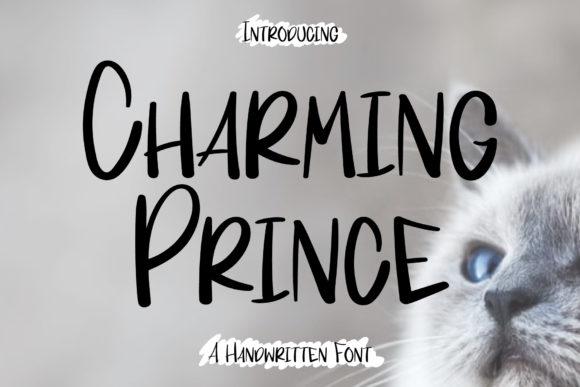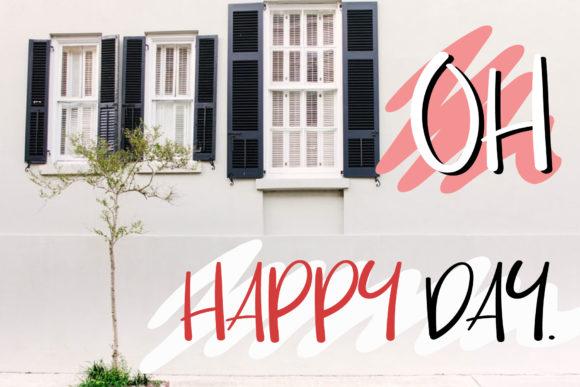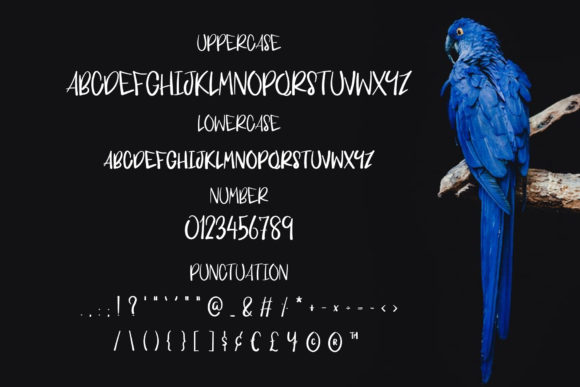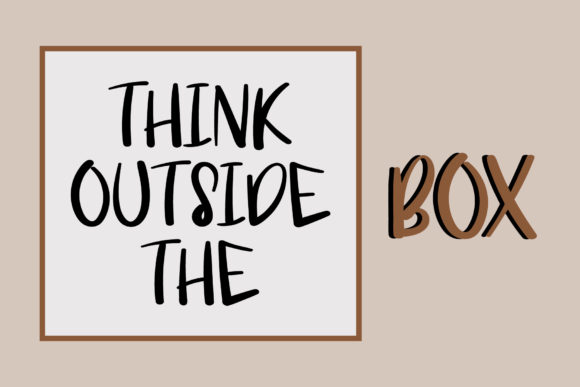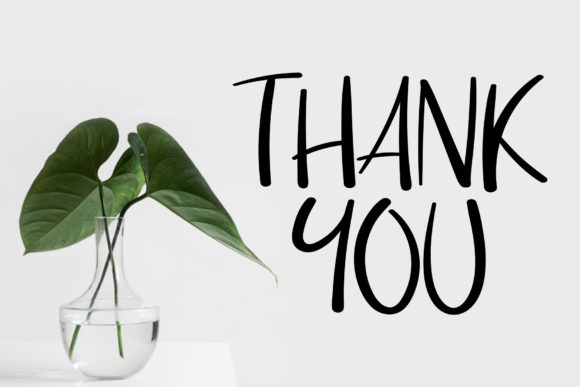
Charming Prince Font
About Charming Prince Font
Charming Prince is a charming and quirky handwritten font that exudes a delightful and playful vibe. With its sweet and joyful style, this font is the perfect choice for a variety of projects, especially those related to children or schools.
The whimsical letterforms of Charming Prince add a touch of innocence and fun to your designs. Its handwritten appearance creates a sense of authenticity and warmth, making it a great choice for projects targeting young audiences or those that require a lighthearted and cheerful tone.
Whether you’re working on children’s book illustrations, school posters, educational materials, or even birthday invitations, Charming Prince will bring a smile to everyone’s face. Its unique and quirky character designs add personality and character to your text, making it more engaging and appealing to children.
The versatility of Charming Prince allows it to adapt to various design contexts. You can use it for headlines, body text, or as decorative elements to add a touch of whimsy and playfulness to your designs. Experiment with different sizes, colors, and letter spacing to achieve the desired effect and create visually captivating compositions.
Charming Prince is designed to capture the essence of childhood joy and imagination. Its irregular letterforms and charming imperfections give it a handmade feel, reminiscent of a child’s doodles or playful handwriting. This font is sure to evoke feelings of nostalgia and bring back memories of carefree days.
Incorporate Charming Prince into your projects and let its cute and quirky style bring a sense of delight and wonder to your designs. Pair it with colorful illustrations, playful graphics, and vibrant backgrounds to create a cohesive and visually appealing composition that captures the attention and imagination of your audience.
In conclusion, Charming Prince is a cute and quirky handwritten font that adds a delightful and playful touch to your projects. Its sweet and joyful style makes it the ideal choice for children-related or school projects. Embrace the whimsy and charm of Charming Prince and create designs that bring smiles and capture the imagination of both children and adults alike.